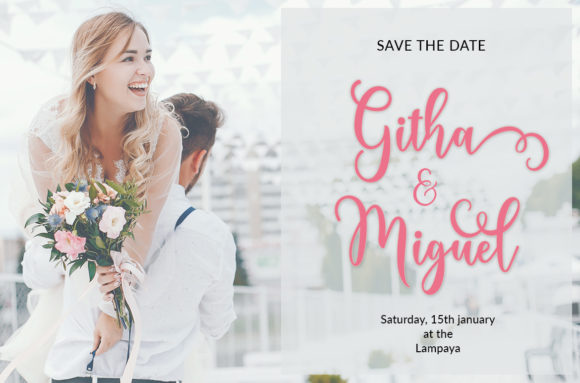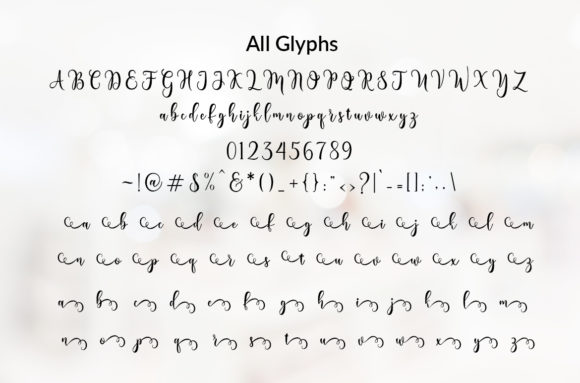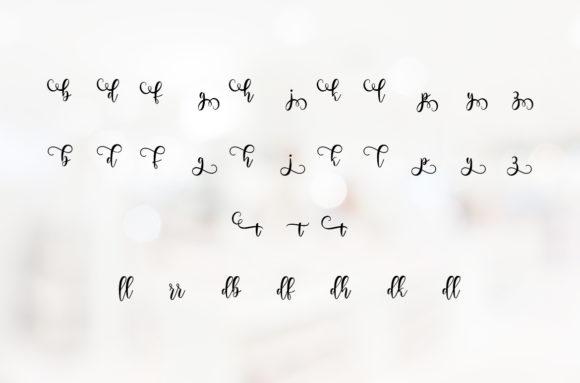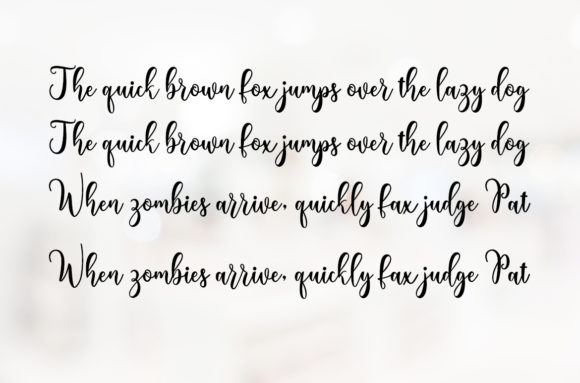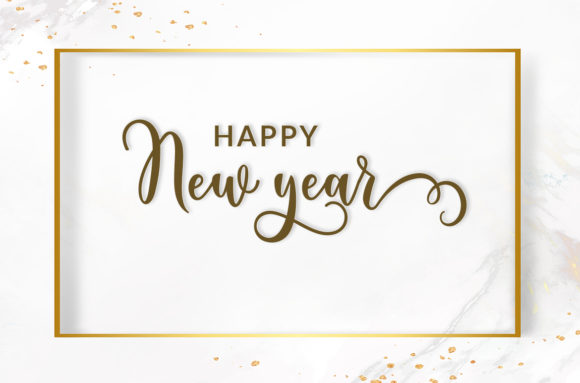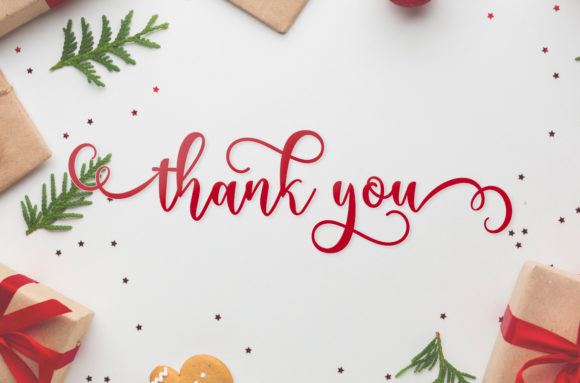
The Font That Speaks to Your Soul
Have you ever been in a moment of pure creative bliss, where the words just flow effortlessly onto the page? It’s a feeling that’s hard to describe, but it’s a mix of excitement, freedom, and a sense of bringing your ideas to life. For many designers, this is the ultimate goal – to create something beautiful and authentic that connects with others.
Enter the Beverly Script Font, a gorgeous script font that radiates authenticity and life. Designed to ignite your creativity, this bold and sweet script font is perfect for adding a personal touch to your designs. Whether you’re working on a branding project, a wedding invitation, or a social media campaign, the Beverly Script Font is a valuable addition to your design toolkit.
With its unique, handwritten feel, the Beverly Script Font adds a touch of warmth and personality to any design. It’s a versatile font that’s sure to inspire your creativity and help you create something truly special.
Beverly Script Font Key Features
- Font Family: Beverly Script, a beautiful script font
- Unique Characteristics: Elegant, cursive script with a vintage touch, perfect for wedding invitations, quotes, and other creative projects
Beverly Script Font Review
I recently had the chance to work with the Beverly Script Font, and I must say it’s a beautiful addition to any design project. ✨ The first thing that caught my eye was its elegant and sophisticated feel. It’s perfect for creating a sense of luxury and refinement in your designs.
Here are some of the things that work well with this font:
- Beautifully crafted script letters that are perfect for creating a sense of elegance and sophistication
- Works well for both digital and print designs, making it a versatile choice for designers
- Highly customizable, allowing you to tweak the font to fit your design needs
However, there are a few limitations to be aware of:
- May not be suitable for smaller text sizes, as the letters can become difficult to read
- Some users may find the font to be a bit too ornate or over-the-top, so be sure to use it sparingly
- May require additional styling or formatting to achieve the desired look
Overall, I’d say the Beverly Script Font is a great choice for designers who want to add a touch of elegance and sophistication to their projects. While it may have some limitations, the benefits far outweigh the drawbacks in my opinion.
To get the most out of Beverly Script, use it sparingly and in moderation. This font is best suited for titles, headings, and short paragraphs. Avoid using it for large blocks of text, as it can become overwhelming. Experiment with different font sizes and colors to create a visually appealing design.
Beverly Script is perfect for:
- Event promotions and marketing materials
- Stationery and greeting cards